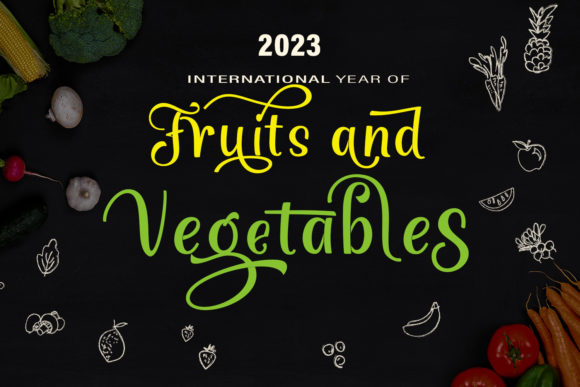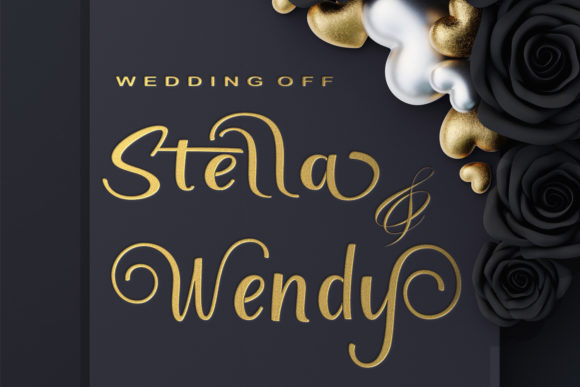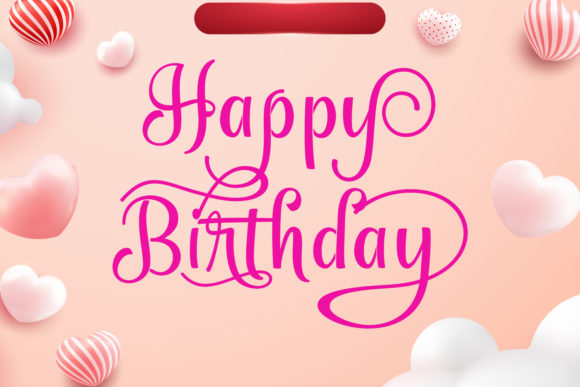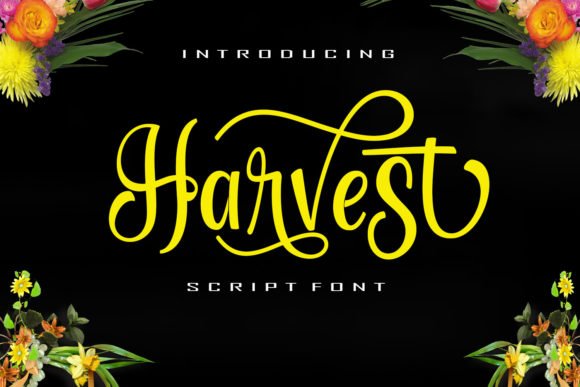
Introduction to Harvest Font
Harvest Script is a soft and sweet calligraphic typeface with characters dancing along the baseline.
It has casual and elegant characters that can be used for logos, wedding invitations, headings, t-shirts, letterheads, signage, labels, news, posters, badges, etc This font is PUA encoded, which means you can access all of the glyphs and swashes with ease.
Key Features of Harvest Font